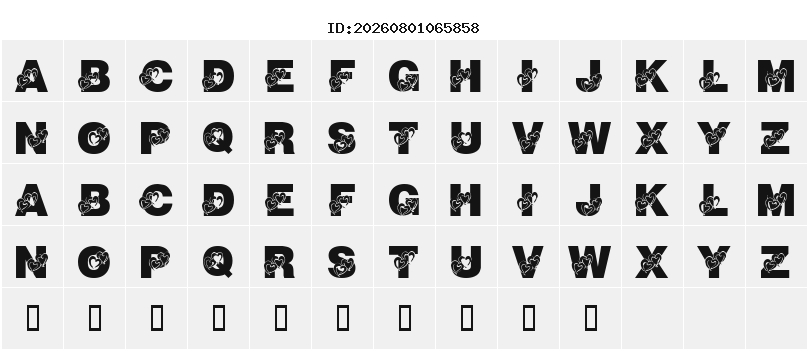
LMS School Girl Crush Preview
• Font Name: LMS School Girl Crush
About LMS School Girl Crush.ttf
LMS School Girl Crush.ttf is a modern, elegant sans-serif font designed for ultimate readability and visual harmony. Perfect for branding, headlines, web design, and print materials.